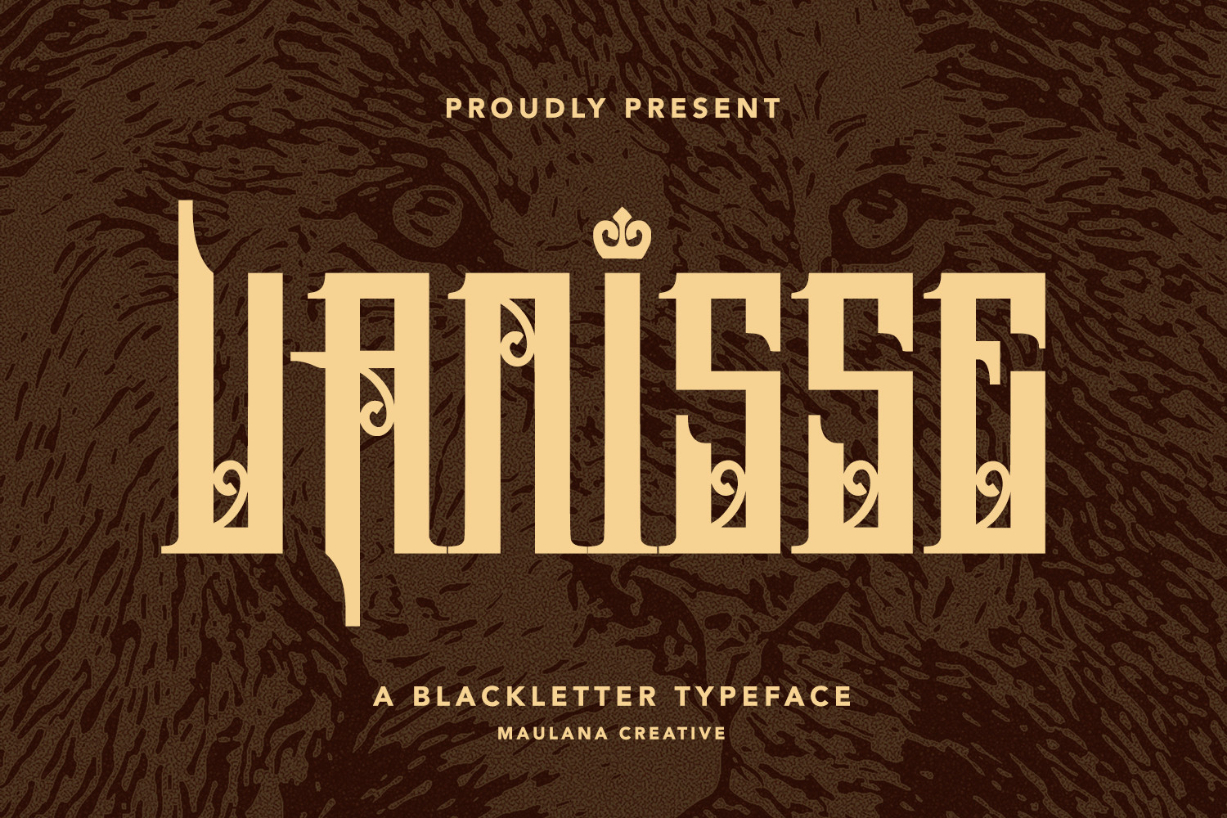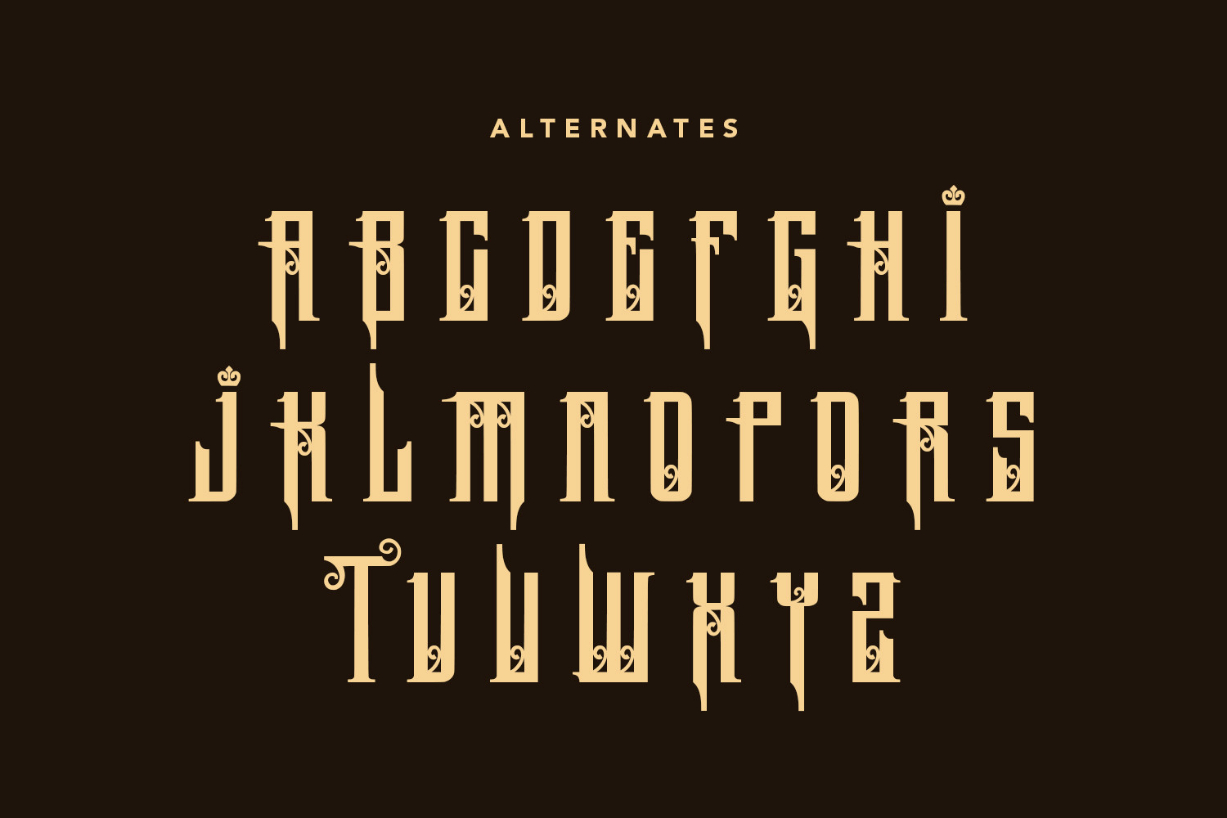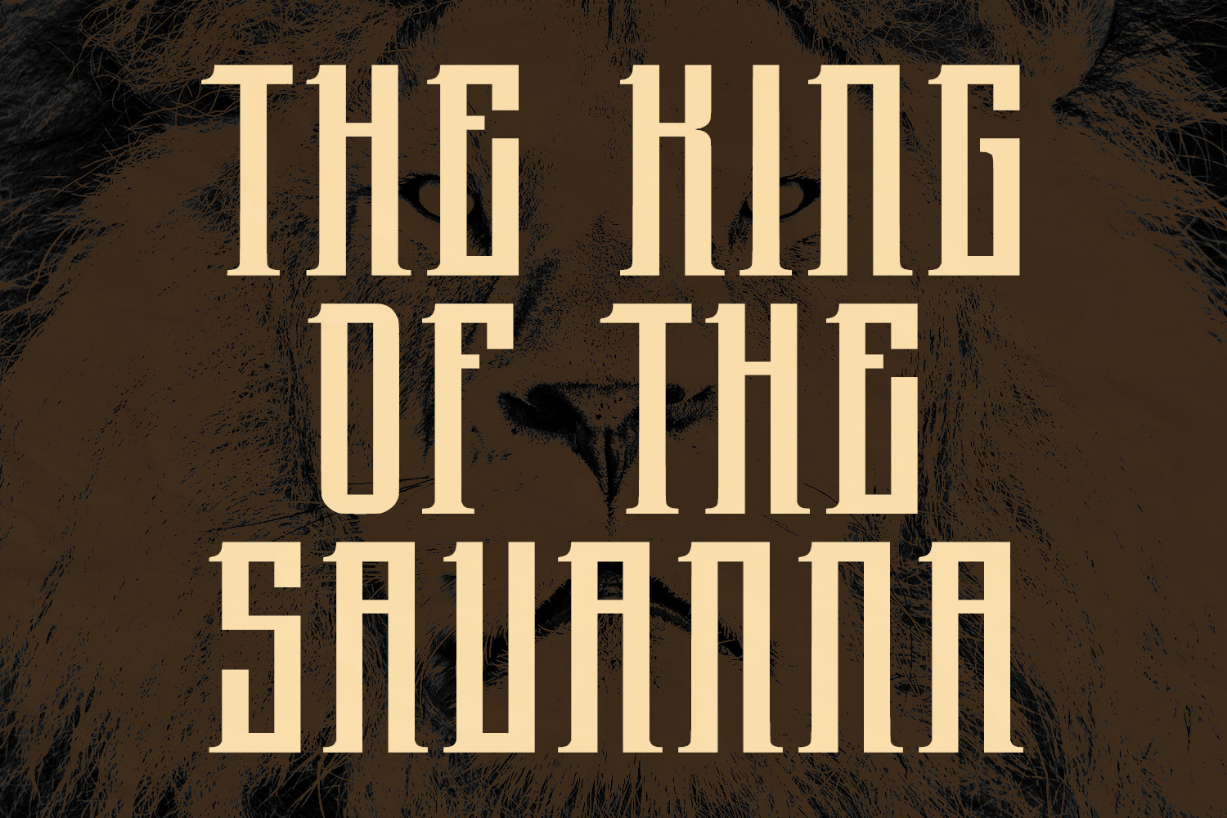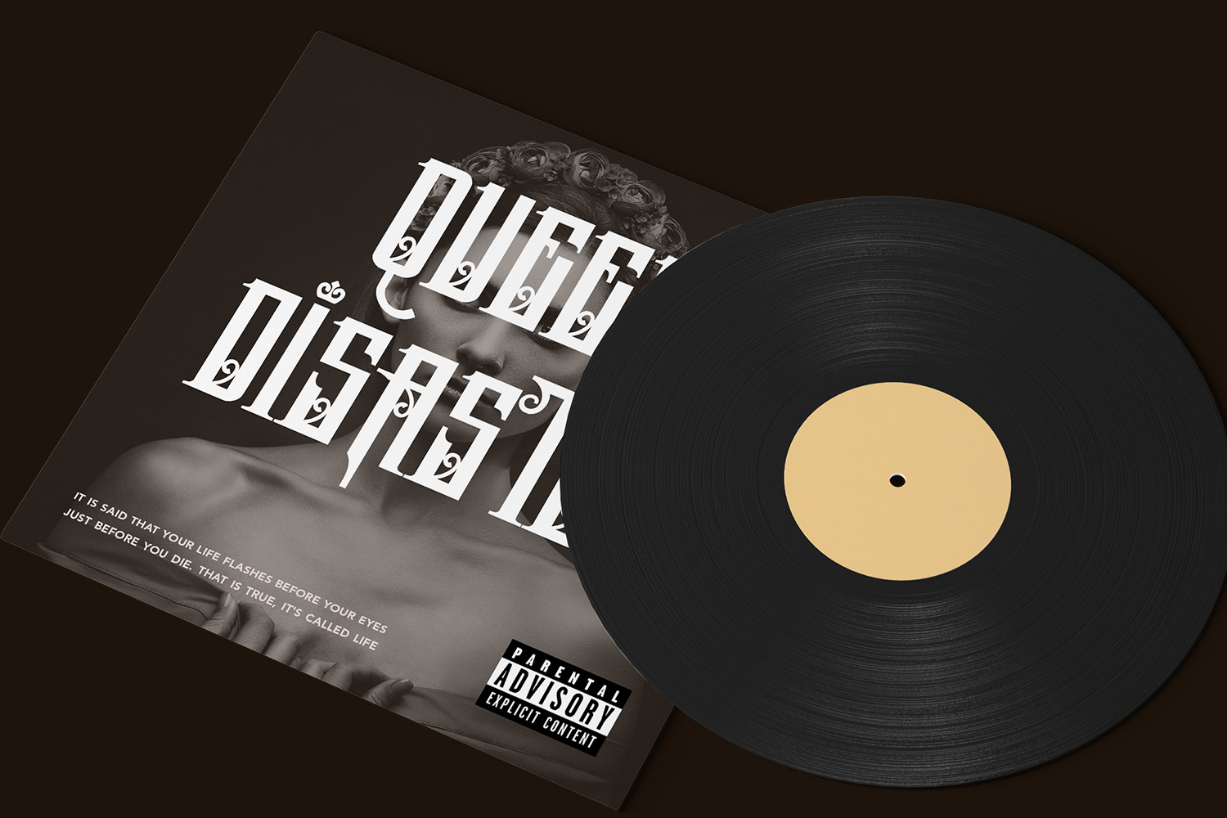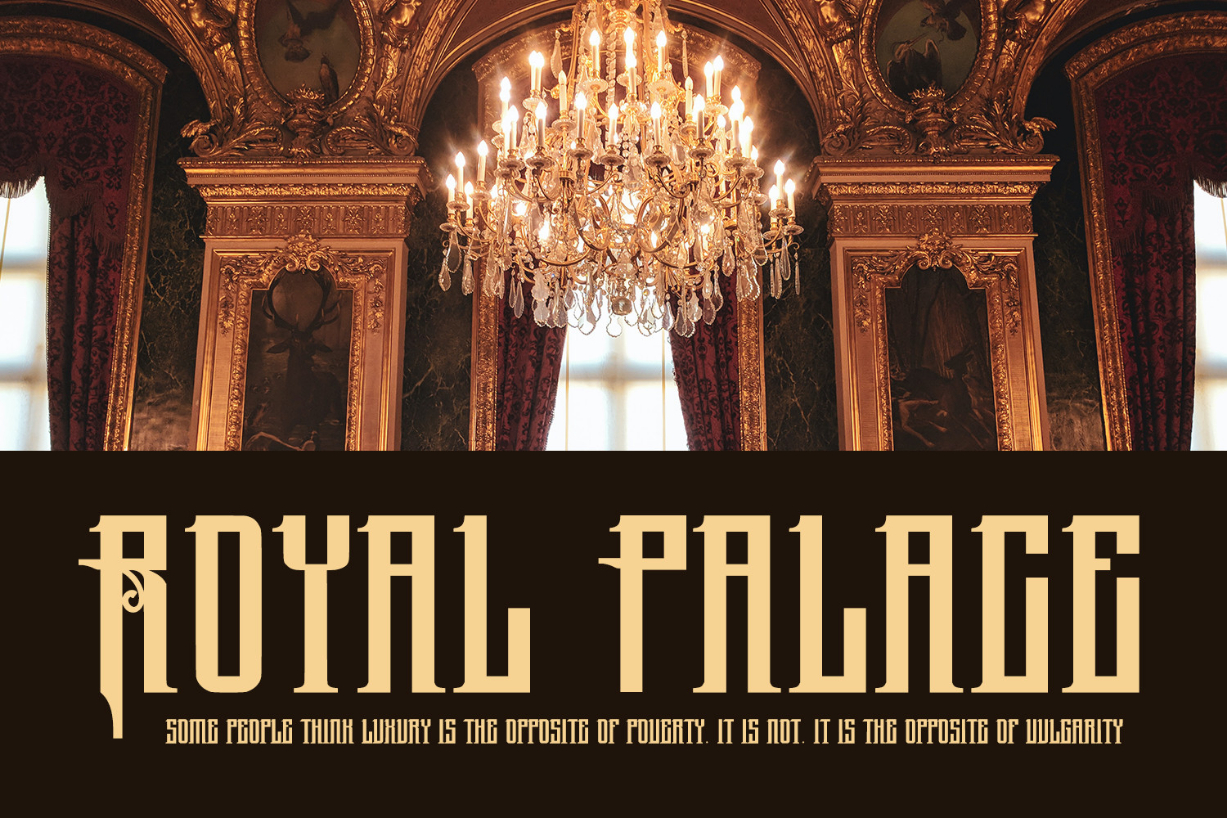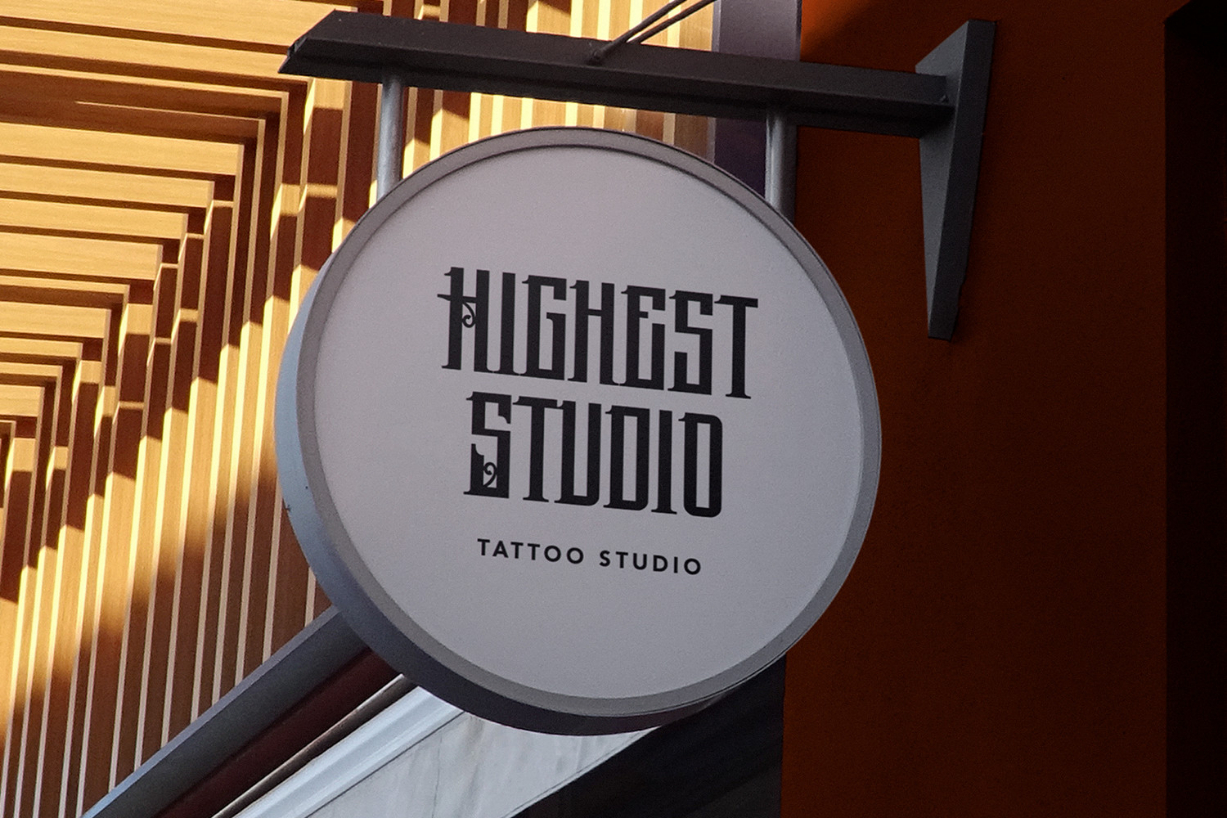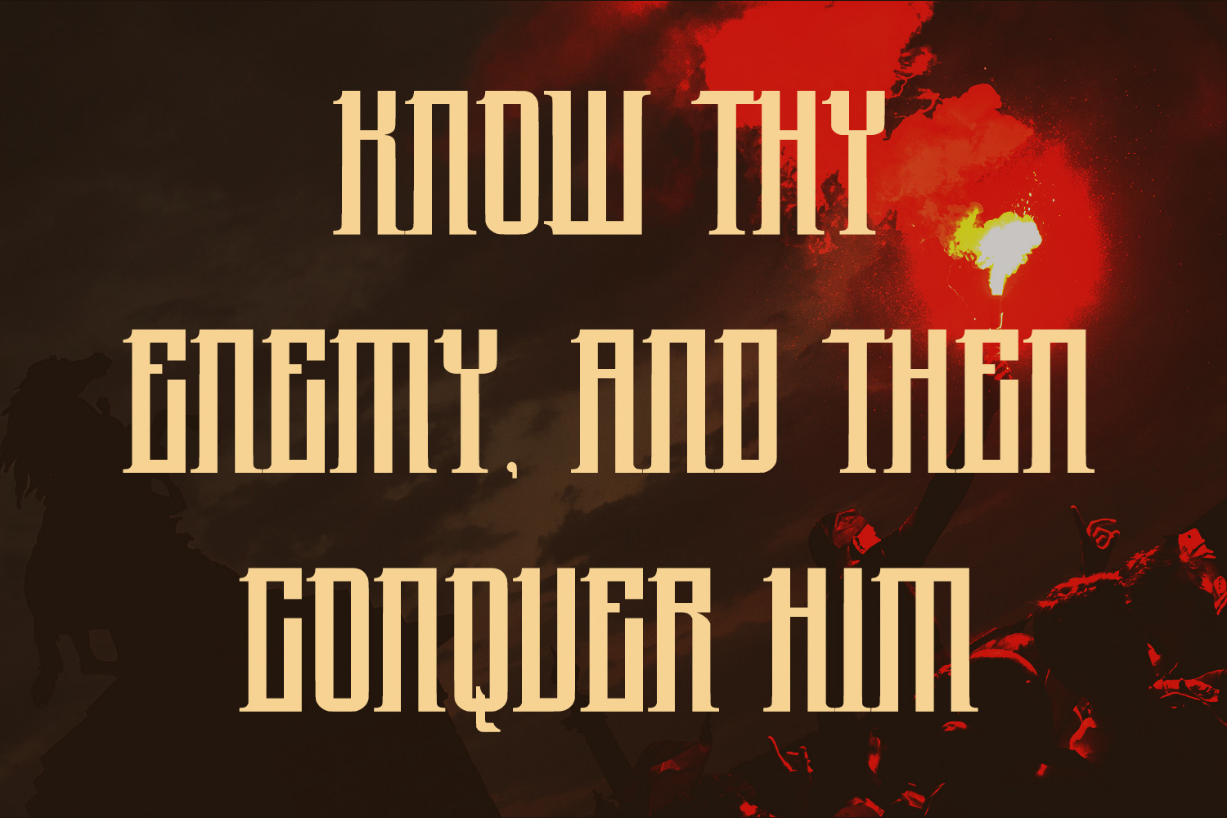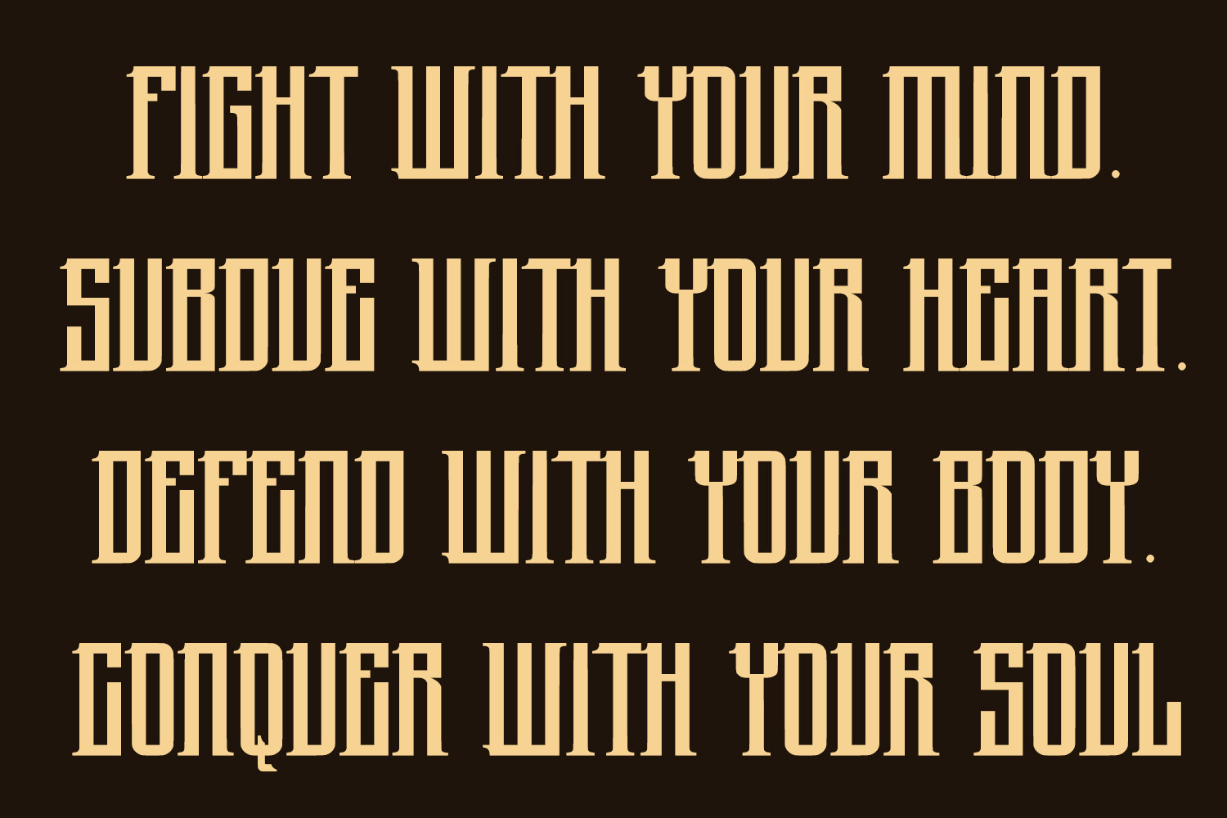
Vanisse Font
About Vanisse Font
Vanisse is a bold and thick lettered blackletter font. Add it confidently to your projects, and you will love the results.